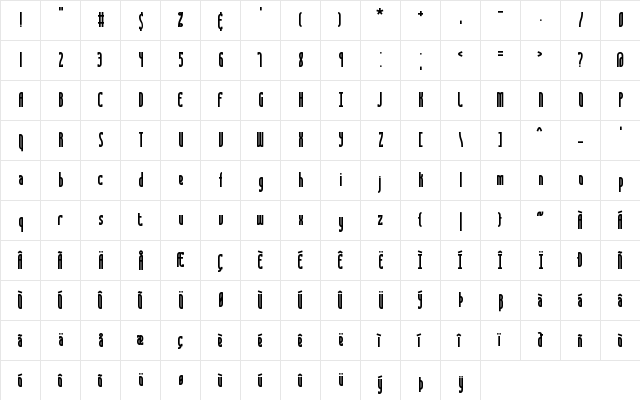
Saunder BRK Normal
Design Context for Saunder BRK Typeface
Saunder BRK offers clean, dependable letterforms without strong stylistic allegiance, making it a practical choice for designers who need flexibility.